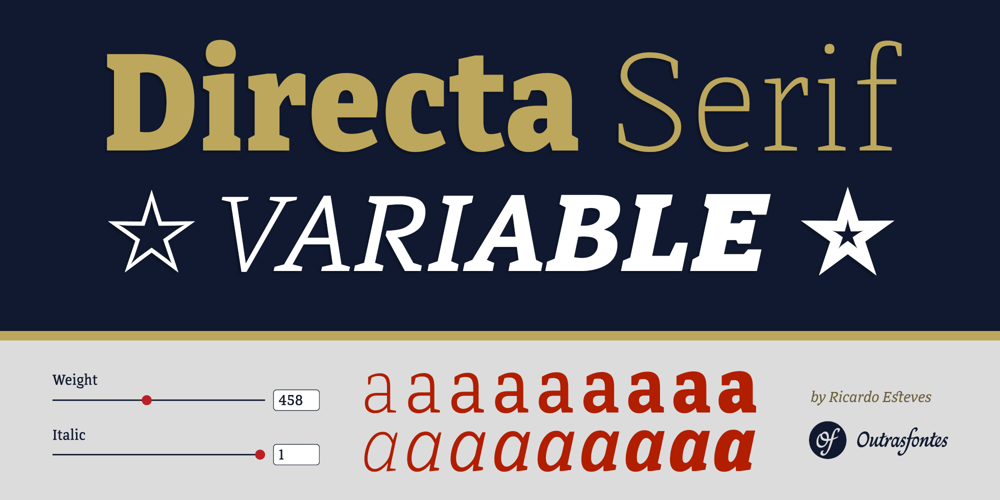
Directa Serif Variable
Directa Serif Variable font
Directa Serif Variable Font Family was designed by Ricardo Esteves Gomes and published by Outras Fontes. Directa Serif Variable contains 1 styles and family package options. Directa Serif Variable is a text type family in one single font file. It explores new possibilities for the original type family released by Outras Fontes some years earlier, which is designed to save space with the highest readability. The variable font is composed of two axes of variation: Weight (100–900) and Italic (0–1). It also contains 18 predefined styles between Thin and Heavy and their respective italics. So now you can adjust the weight of the type by interpolating it in real time using any variable font compatible app. There are hundreds of possibilities between the values of 100 (Thin) and 900 (Heavy). And if you’re feeling adventurous, you can also use the Italic axis to interpolate instances between Roman (0) and Italic (1) and see what happens in the middle. This new technology can be very useful for web and video animations. Directa Serif Variable is also highly recommended for newspapers, magazines, corporate communication and so on. It has a large set of characters, including Western, Central European, Baltic, Scandinavian, Icelandic, Romanian and Turkish unicode ranges. The variable font also includes several ligatures, a complete set of small caps, sets of lining, old style and tabular figures, as well as fractions, superior and inferior numbers. These features can be easily accessed using any OpenType-compatible software.